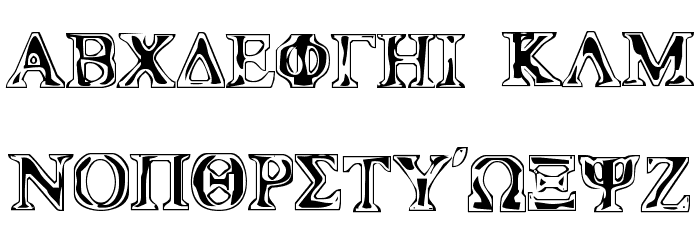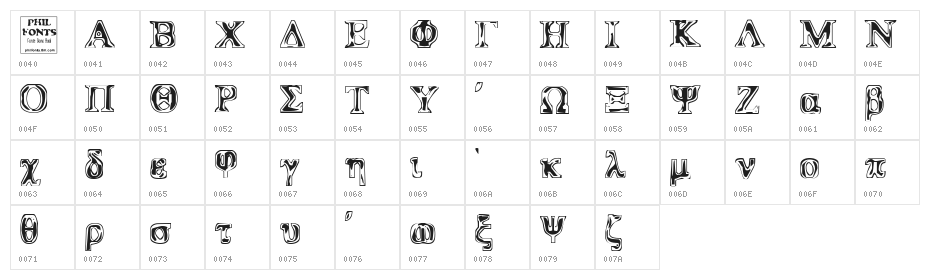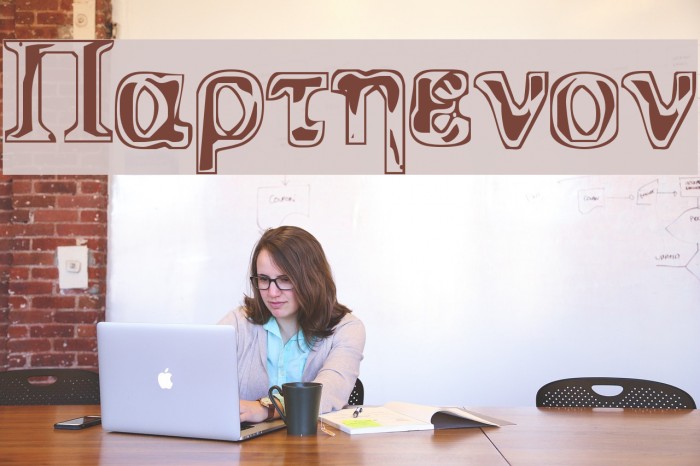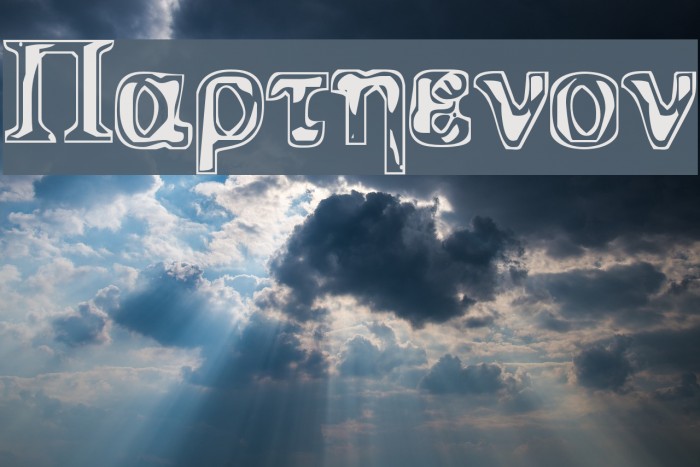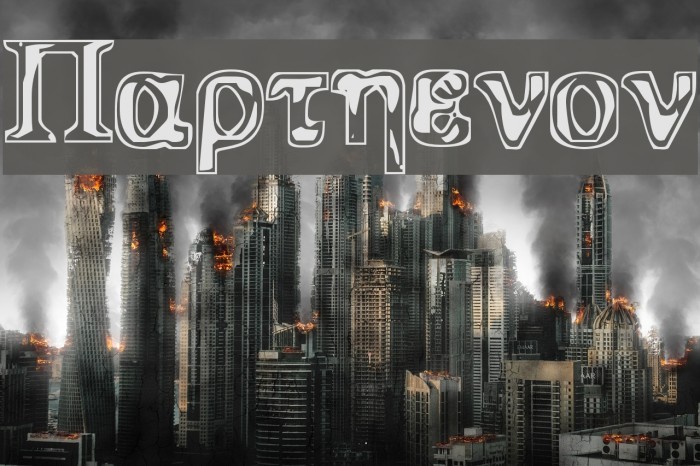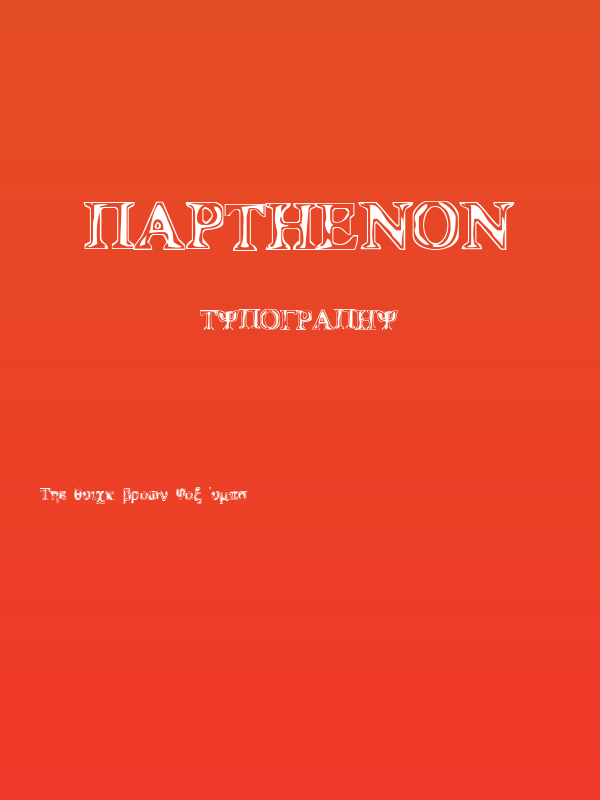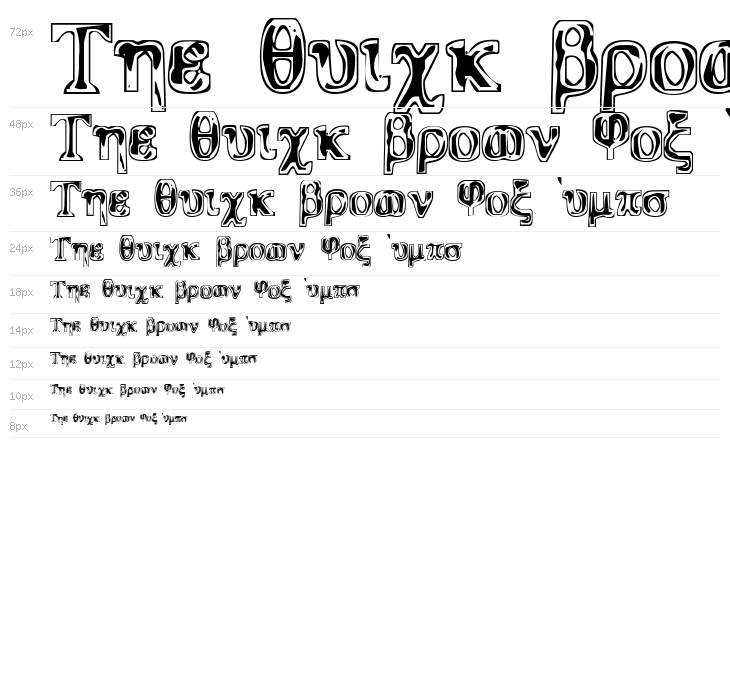
Parthenon Font
Parthenon Description
This font features a bold and decorative style with a strong emphasis on Greek-inspired elements. The characters are outlined with a shadow effect, creating a three-dimensional appearance. The uppercase letters are particularly striking, with sharp serifs and intricate detailing that evoke a sense of ancient architecture. The lowercase letters maintain the same decorative flair, ensuring consistency throughout the typeface. The overall design is both classic and ornamental, making it suitable for projects that require a touch of historical elegance.
| Proposed Projects | Ideal for historical or cultural projects, book covers, posters, and branding that seeks a classical or ancient aesthetic. |